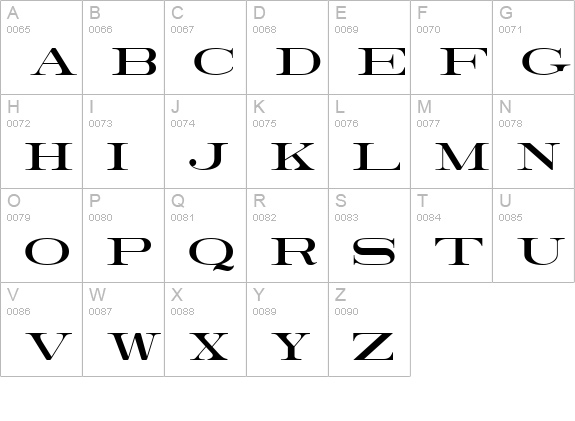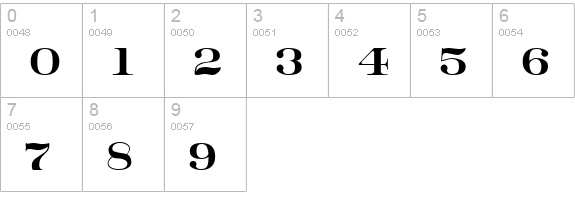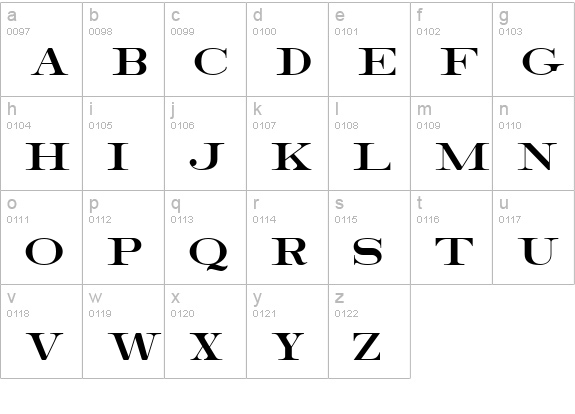
RailroadRoman Font Details
RailroadRoman font is a stunning and versatile typeface that exudes a timeless charm and elegance. With its bold and distinctive letterforms, this font is perfect for adding a touch of classic sophistication to any design project. Whether you're creating a vintage-inspired poster, a retro logo, or a traditional wedding invitation, RailroadRoman font will effortlessly elevate your work to new heights. What sets RailroadRoman font apart is its unique ability to seamlessly blend elements of both modern and traditional typography. Its clean lines and sharp edges give it a contemporary feel, while its subtle curves and ornate details pay homage to the elegance of traditional typefaces. This balance between the old and the new makes RailroadRoman font incredibly versatile, allowing it to adapt to a wide range of design styles and aesthetics. One of the best things about RailroadRoman font is that it is freely available to download at FontsMarket.com. This means that you can enjoy the beauty and functionality of this font without any financial constraints. Whether you're a professional designer or a hobbyist, the accessibility of RailroadRoman font allows you to unleash your creativity without worrying about breaking the bank. With its timeless appeal and free availability, RailroadRoman font is a must-have for any designer's toolkit. So go ahead, visit FontsMarket.com and download this amazing font today. You won't be disappointed!